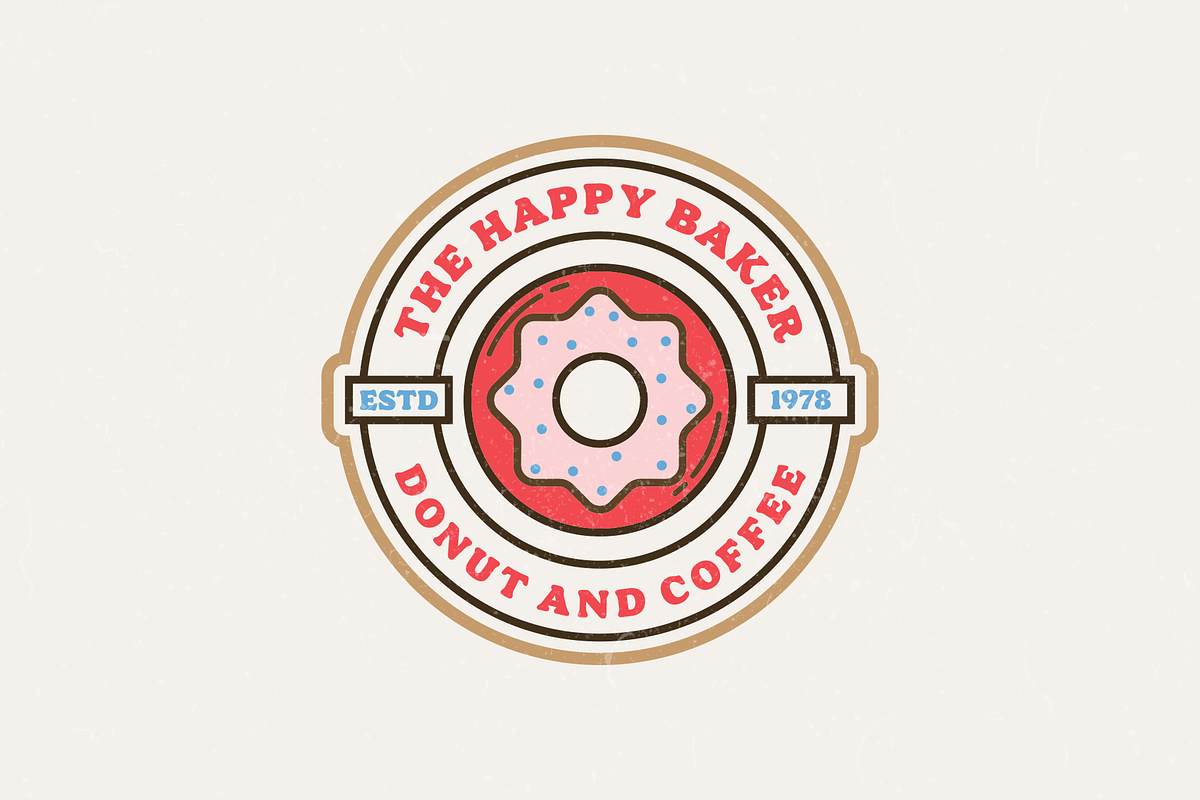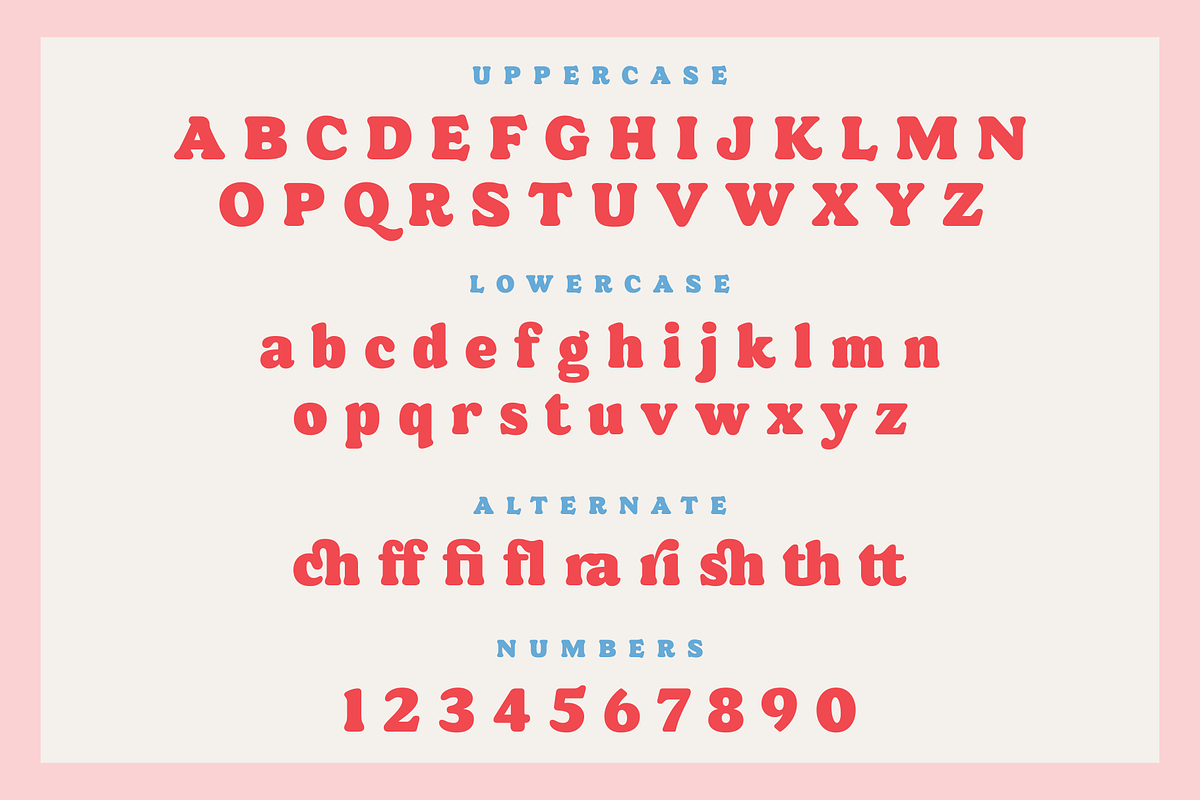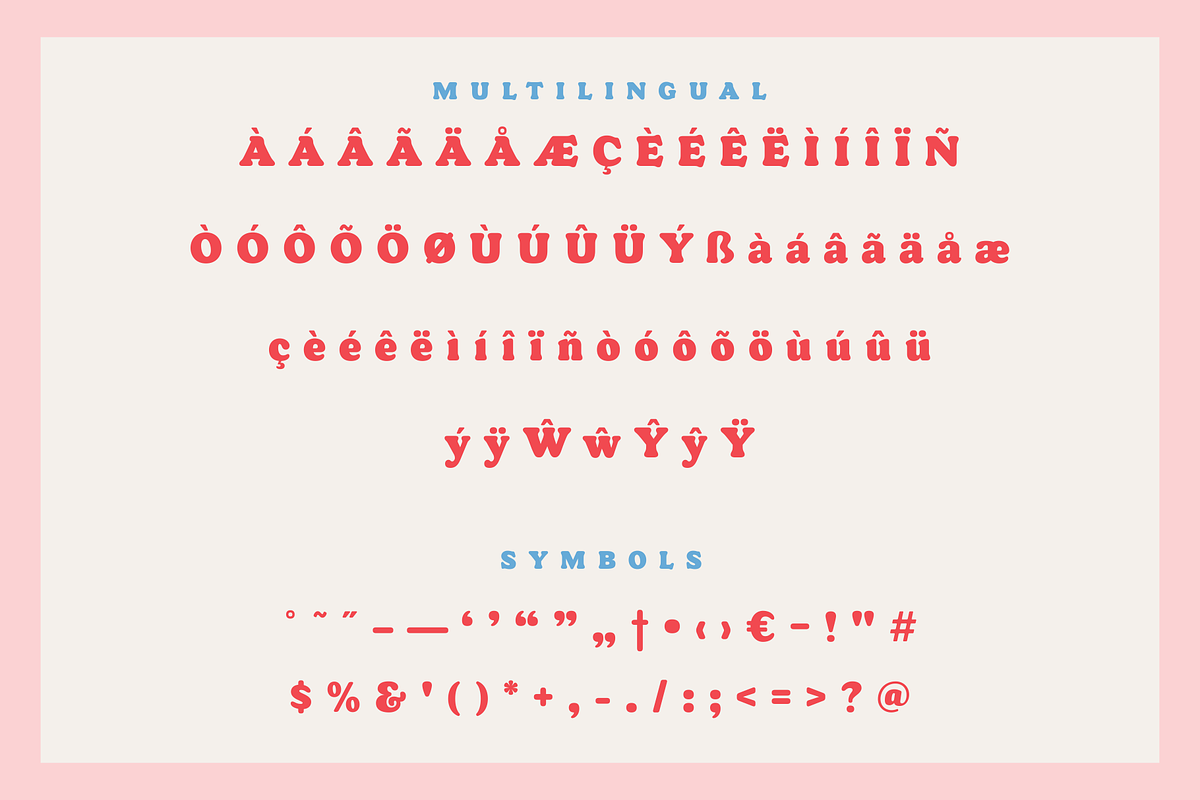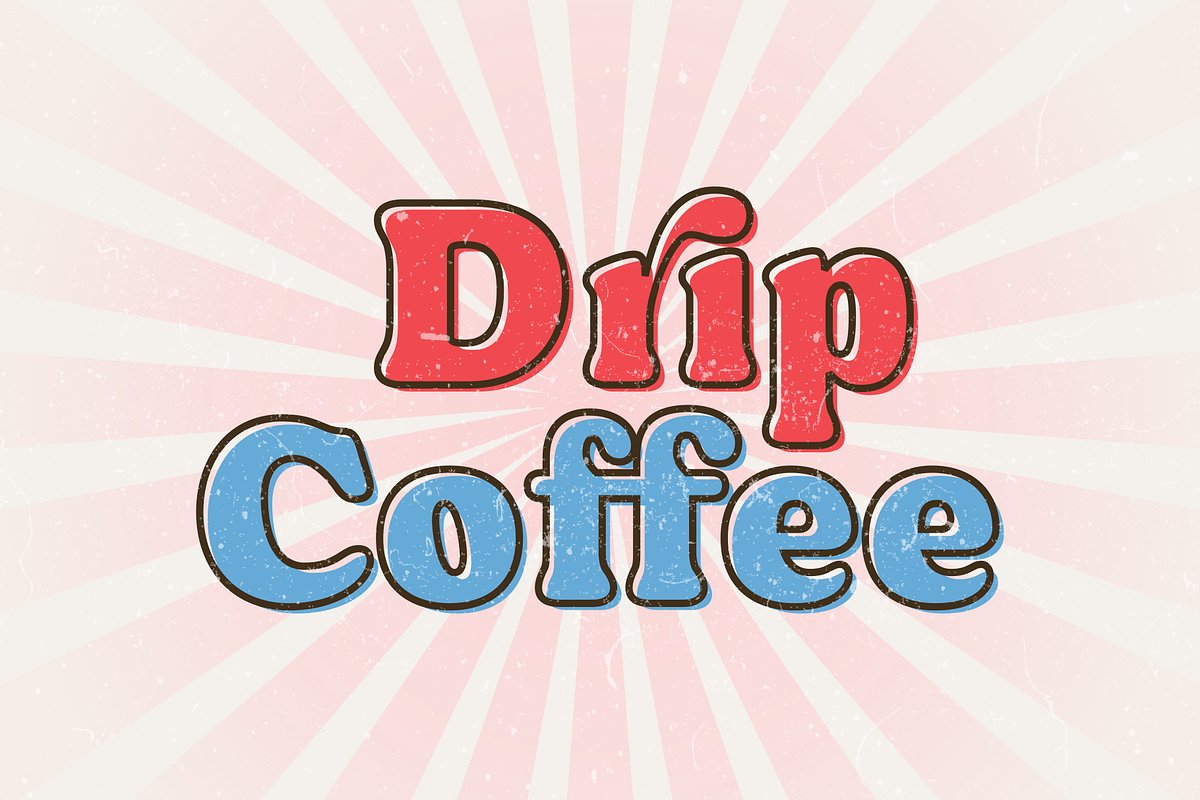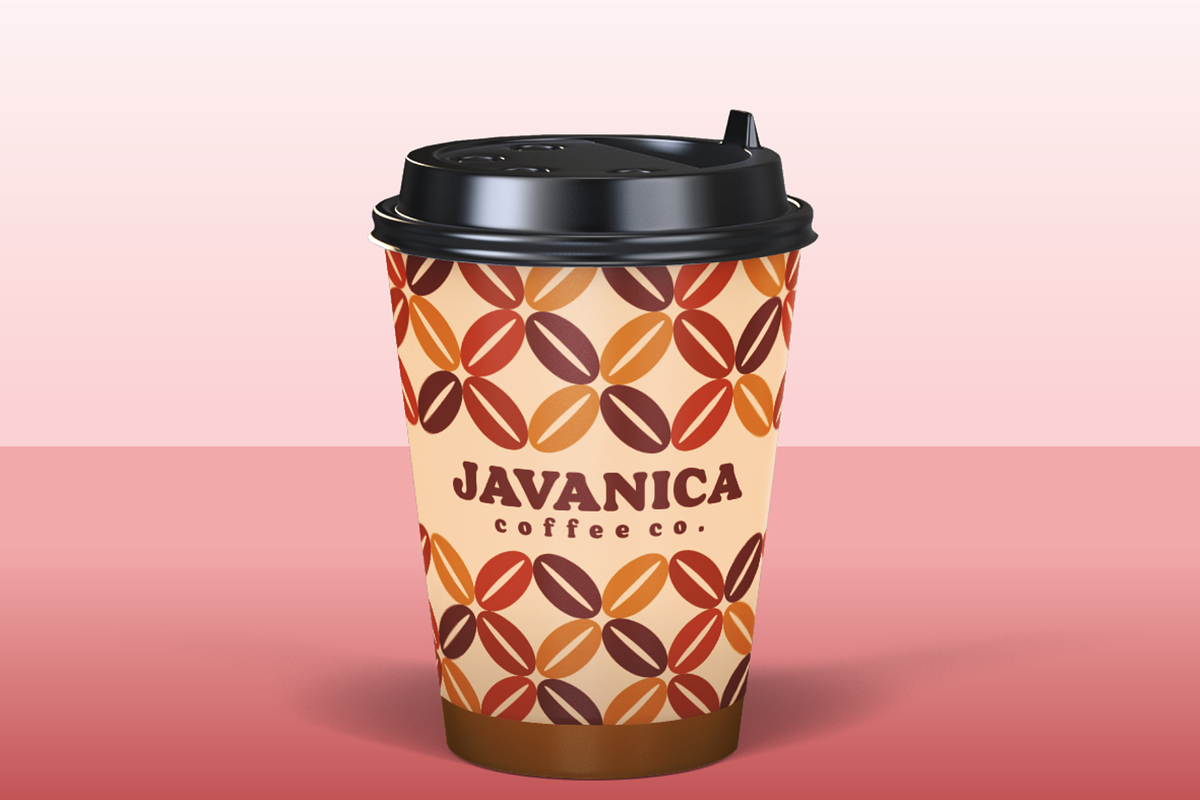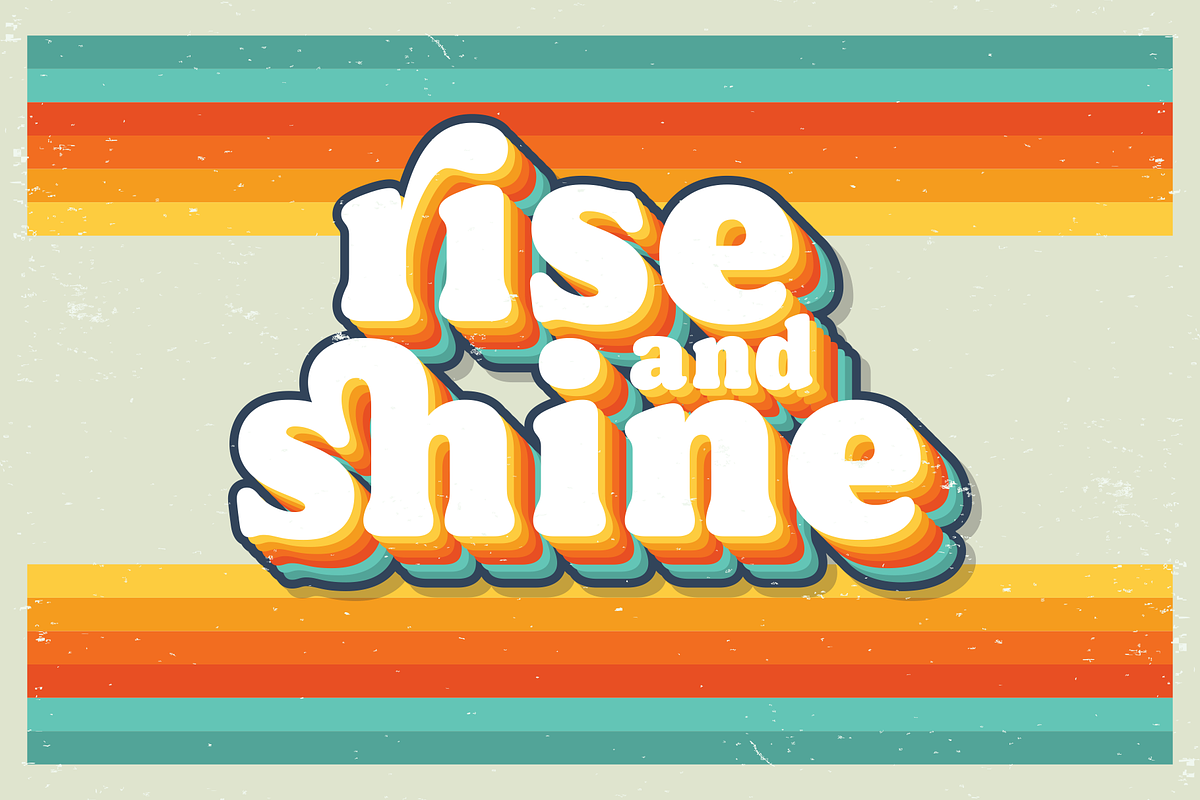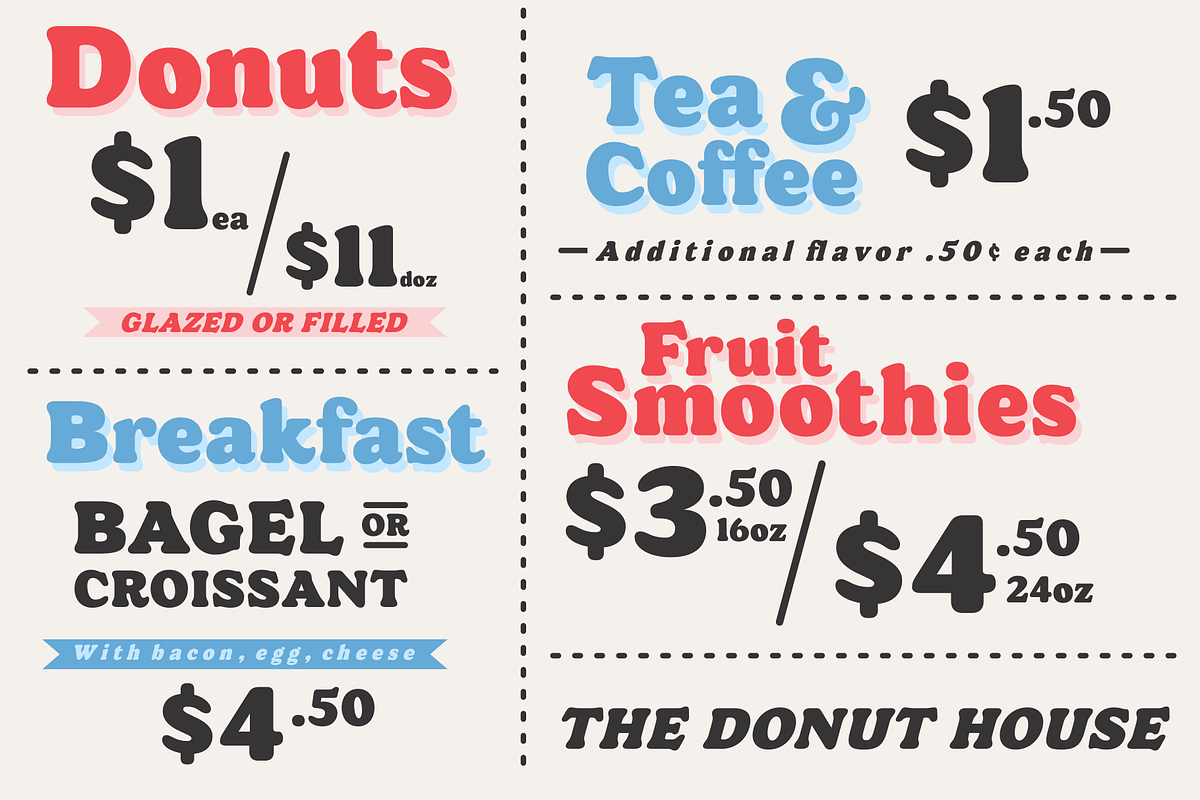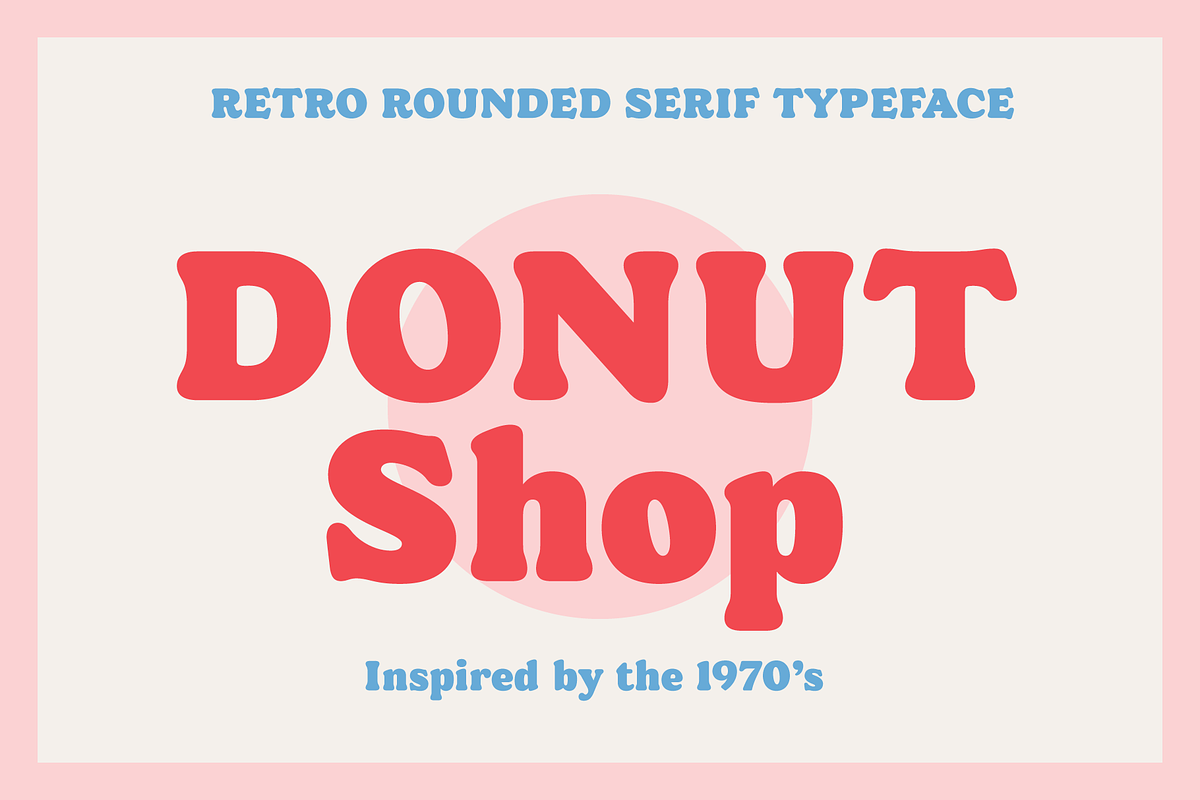
Donut Shop - Retro Rounded Serif
Donut Shop is a chunky and fun retro rounded serif font. It features soft corners, multilingual support and a selection of ligature options. Inspired by the easy going 70's, this font is great for large display projects, branding elements, package designs & much more!